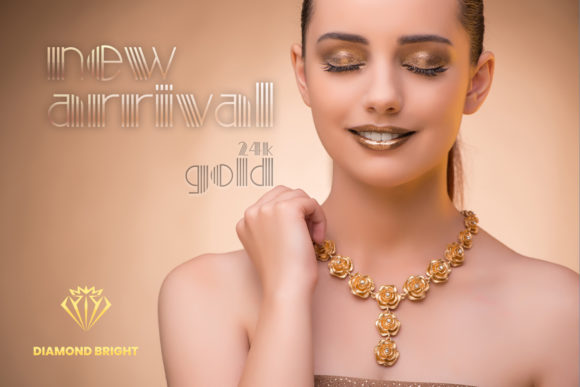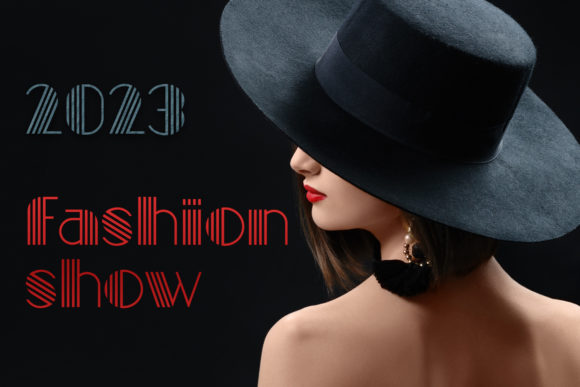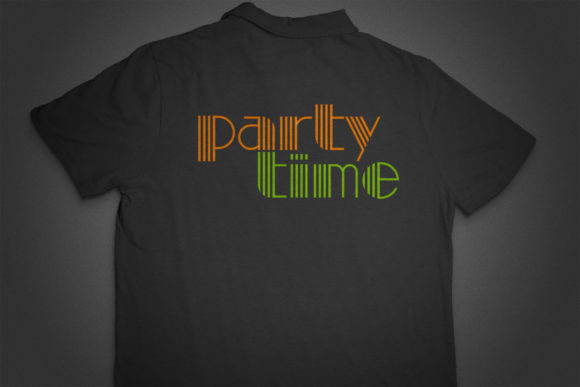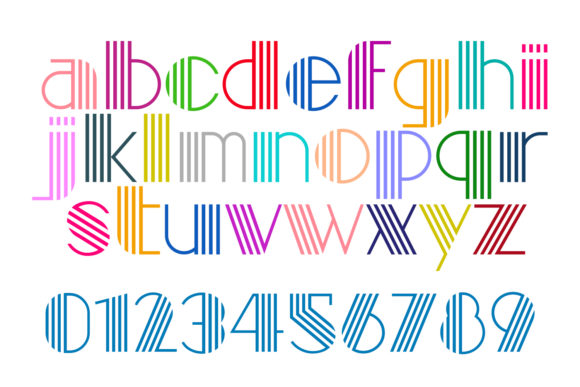
Introducing Golden Lines Font: Elevate Your Designs with Elegance
Golden Lines is an incredibly unique display font that has been masterfully designed to become a true favorite among designers and crafters. With its exceptional style and versatility, this font has the potential to bring each of your creative ideas to the highest level. In this article, we’ll dive into the world of Golden Lines Font, exploring its features, benefits, and uses, as well as provide tips on how to make the most of this stunning typeface.
What Makes Golden Lines Font So Special?
Golden Lines Font is a one-of-a-kind display font that boasts a distinctive, elegant design. Its unique lines and curves create a sophisticated look that’s perfect for a wide range of creative projects, from branding and advertising to packaging and digital media. The font’s exceptional craftsmanship is evident in its smooth, flowing lines, which give it a luxurious feel that’s sure to impress.
Key Features of Golden Lines Font
- Unique and elegant design: Golden Lines Font features a distinctive, high-end design that’s perfect for creating sophisticated and eye-catching visuals.
- Versatile and adaptable: This font is suitable for a wide range of creative projects, from digital media to print materials.
- Exceptional legibility: Despite its elegant design, Golden Lines Font remains highly legible, making it perfect for use in body text and headlines.
- Wide range of uses: Golden Lines Font can be used for branding, advertising, packaging, and more.
Benefits of Using Golden Lines Font
So, why should you choose Golden Lines Font for your next project? Here are just a few benefits of using this exceptional typeface:
- Add a touch of elegance: Golden Lines Font brings a level of sophistication and refinement to any design, making it perfect for high-end brands and luxury products.
- Stand out from the crowd: With its unique design, Golden Lines Font is sure to grab attention and set your brand or project apart from the competition.
- Enhance your brand’s identity: This font’s exceptional style and versatility make it an excellent choice for creating a strong brand identity.
Tips for Using Golden Lines Font
To get the most out of Golden Lines Font, here are a few tips to keep in mind:
- Use it sparingly: Golden Lines Font is a display font, so it’s best used sparingly to create a strong visual impact.
- Experiment with colors and textures: This font looks stunning in a range of colors and textures, so don’t be afraid to experiment and find the perfect combination for your design.
- Pair it with complementary fonts: Golden Lines Font pairs well with a range of other fonts, so try combining it with complementary typefaces to create a unique visual style.
Who Can Benefit from Golden Lines Font?
Golden Lines Font is perfect for a wide range of designers and crafters, including:
- Graphic designers: This font is ideal for creating stunning visuals, from brochures and flyers to business cards and letterheads.
- Branding and advertising professionals: Golden Lines Font is perfect for creating eye-catching ads, logos, and marketing materials.
- Crafters and makers: This font is great for creating beautiful, professional-looking packaging and labeling for handmade products.
Golden Lines Font is an exceptional display font that’s sure to elevate your designs to new heights. With its unique and elegant design, versatility, and exceptional legibility, this font is perfect for a wide range of creative projects. Whether you’re a graphic designer, branding professional, or crafter, Golden Lines Font is an excellent choice for adding a touch of sophistication and refinement to your work. So why wait? Download Golden Lines Font today and start creating stunning visuals that will leave a lasting impression!